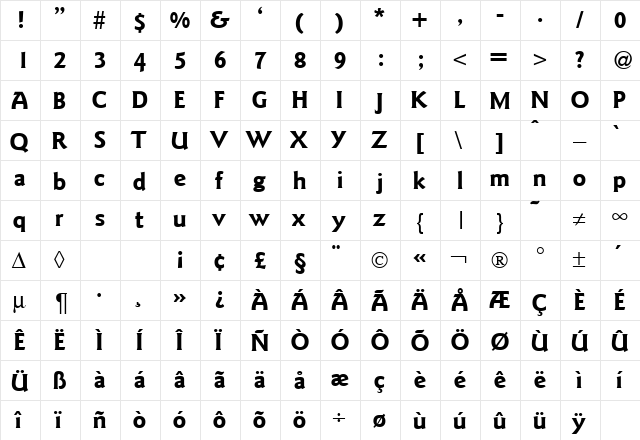
GoudySansTwo DB Bold
Design Context for GoudySansTwo DB Typeface
GoudySansTwo DB is a composed and adaptable typeface that performs quietly and consistently across a wide range of design contexts. The heavy weight commands attention and anchors typographic hierarchies.